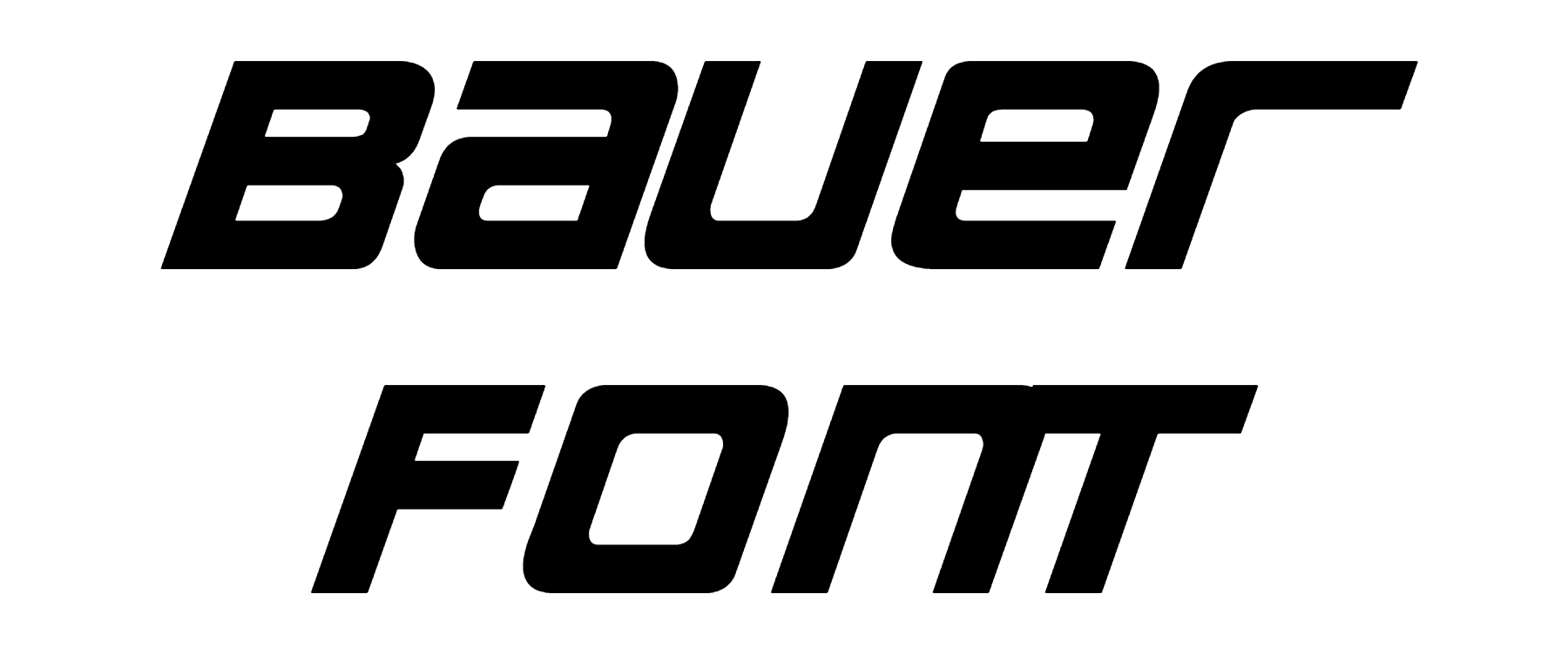
Bauer
What You Can Type With Bauer
Bauer covers the full alphabet in upper and lowercase, plus all ten numbers, so you can set names, dates and prices without switching fonts. Common punctuation such as !, ?, @ and # is included as well. It also has the accented letters you need for Spanish, French, German, Portuguese and Italian.
Where Bauer Works Best
Think of Bauer for everyday text, websites and clean logos. Fonts like this are workhorses: use them for body text, captions and anything people need to read quickly.
Does Bauer support accented letters?
Yes. Bauer includes the accented letters needed for Spanish, French, German, Portuguese and Italian, so it works for more than just English.
What fonts pair well with Bauer?
Add a more decorative display font for the headline if your design needs extra personality.